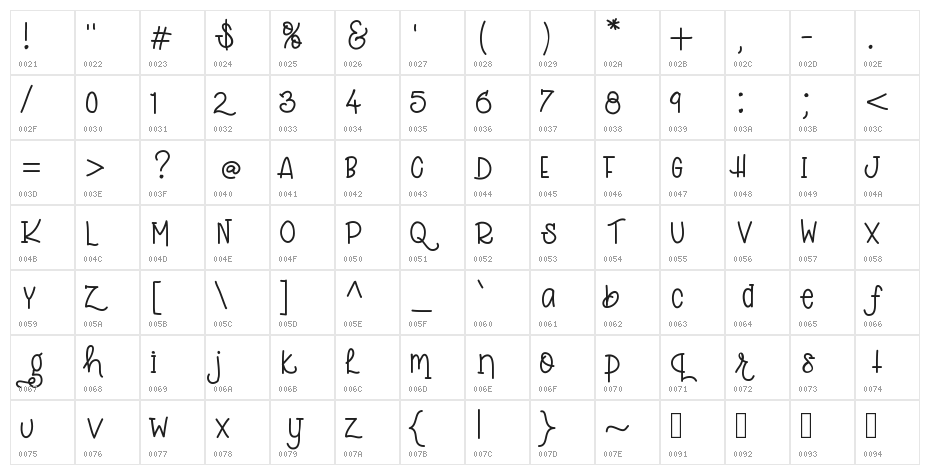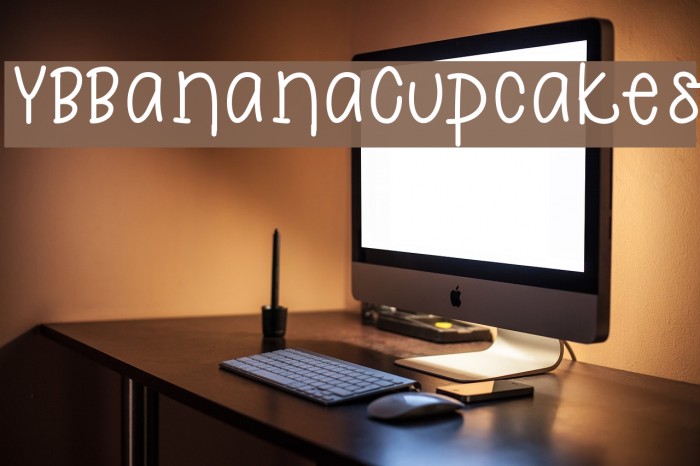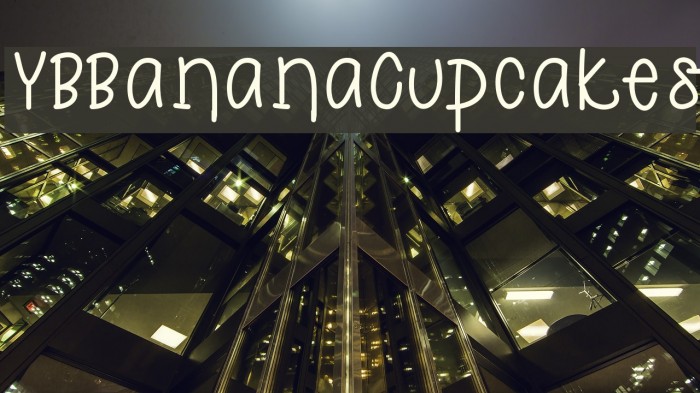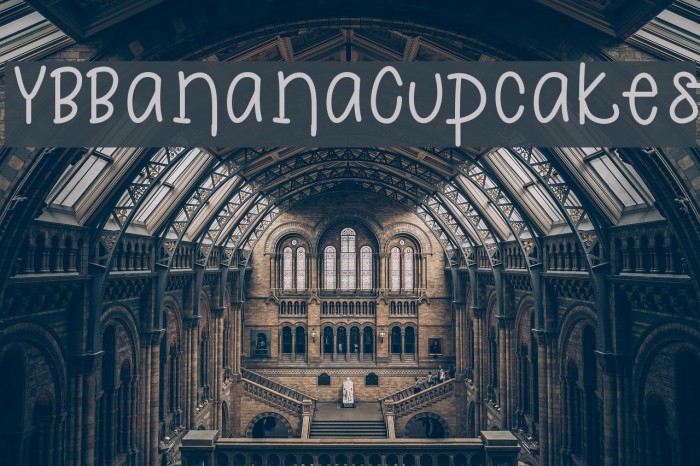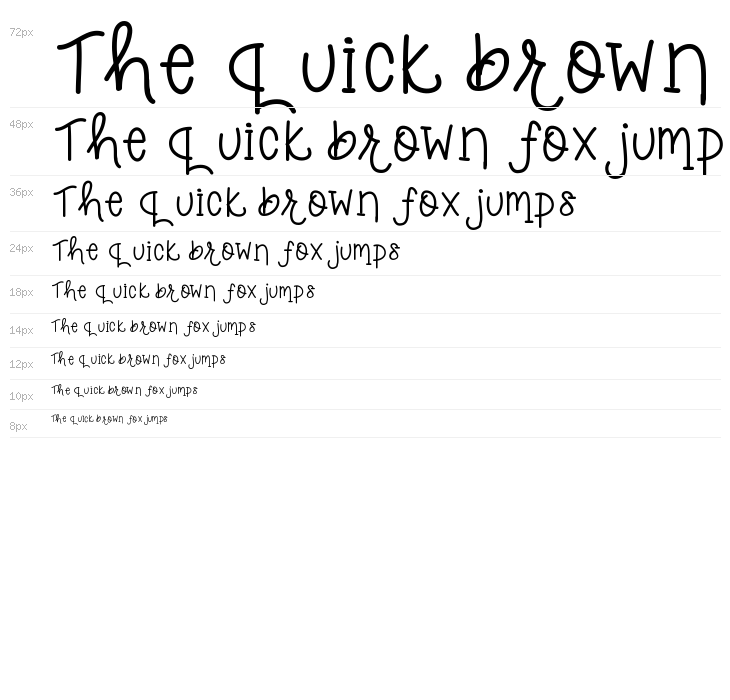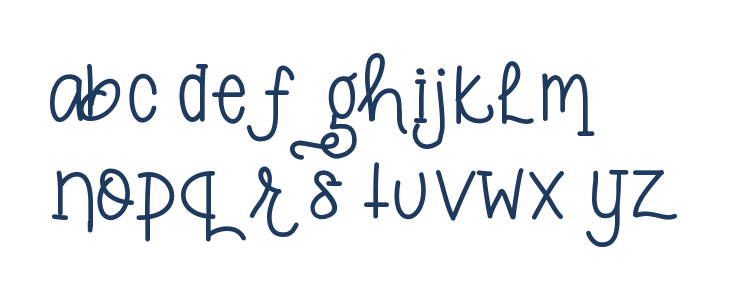
YBBananaCupcakes Font
YBBananaCupcakes Description
This playful and whimsical font features a handwritten style with a charming, casual flair. The letters are characterized by their smooth, flowing curves and slightly irregular shapes, giving them a lively and dynamic appearance. The uppercase letters are bold and prominent, while the lowercase letters maintain a consistent style with a touch of elegance. The numerals and special characters are crafted to match the overall aesthetic, ensuring a cohesive look across all text. This font exudes a sense of fun and creativity, making it ideal for projects that require a personal and informal touch.
| Proposed Projects | Ideal for greeting cards, children's books, playful branding, and creative invitations. |